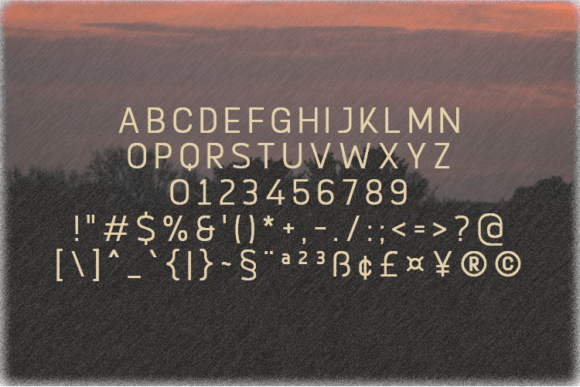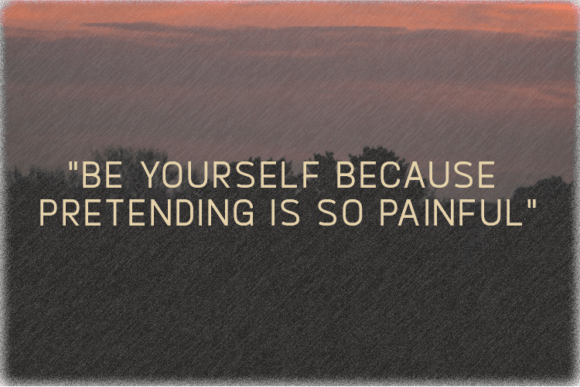
Introduction to Melancholic Font
Enter the Melancholic Font, a stunning all-caps sans serif font that’s as versatile as it is beautiful. With its smooth lines and subtle contrast, this high-quality font is the perfect addition to any creative project. Whether you’re designing a logo, branding materials, or web headings, the Melancholic Font is sure to impress.
- Unique, hand-drawn design with a touch of elegance, making it perfect for creative projects that require a high-quality design resource.
- Includes a comprehensive character set, covering a wide range of languages and special characters, making it a versatile design resource.
- Perfect for designers and artists looking to add a touch of melancholy and sophistication to their work, with a unique aesthetic that sets it apart from other fonts.
Honest Review: Melancholic Font
As a designer, I’ve had the pleasure of working with numerous fonts for various creative projects. Recently, I stumbled upon the Melancholic Font and was excited to see how it would perform. Overall, I was impressed with the quality of this font.
- ✨ High-quality design: The Melancholic Font has a unique and captivating design that immediately drew me in. The subtle details and nuanced textures add depth to any design.
- ✨ Transparent background: The transparent background allows for seamless integration with any design element, making it a valuable resource for designers.
- ⚠️ Limited character set: The font’s character set is somewhat limited, which may be a concern for designers who require a broader range of characters.
- ⚠️ Not ideal for body text: While the font is stunning in headings, it may not be the best choice for body text due to its unique style.
Overall, I’m impressed with the Melancholic Font and would recommend it for designers seeking a high-quality, unique font for their creative projects.
For getting the most out of Melancholic Font, try using it in a variety of design contexts, such as headings, titles, and body text. It’s also great for creating a cohesive brand identity. Some common use cases include wedding invitations, marketing materials, and social media graphics.